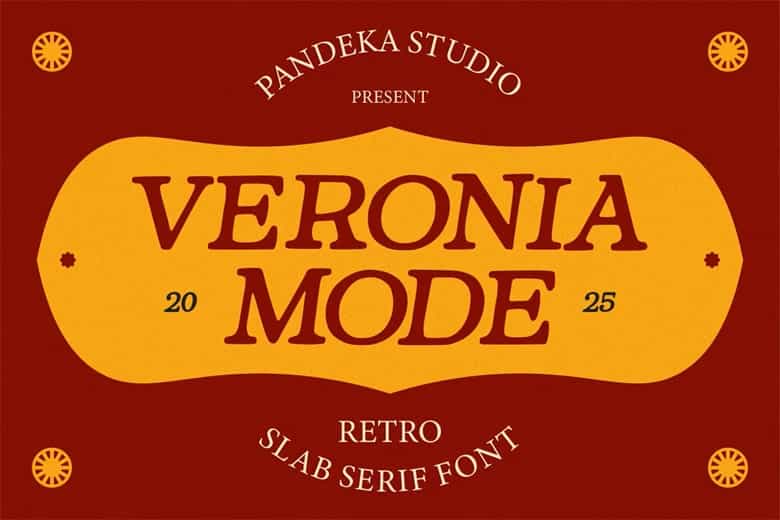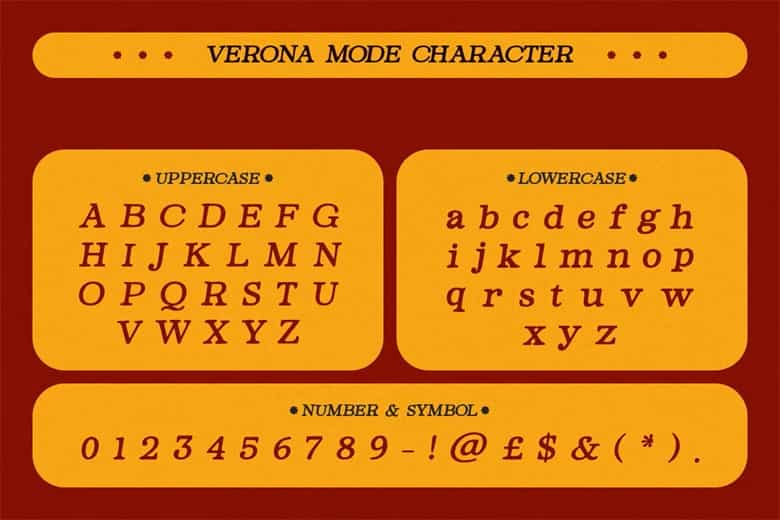
Veronia Mode is a retro slab serif font with a bold retro vintage, and classic with lettering. Complex serifs and good flow lines create the timeless yet a fashionable display. Veronia Mode is perfectly matched for branding, posters, signage, editorial design, packaging, and as a nostalgic theme; it brings an added, bold typographic presence with a dash of classic charm.